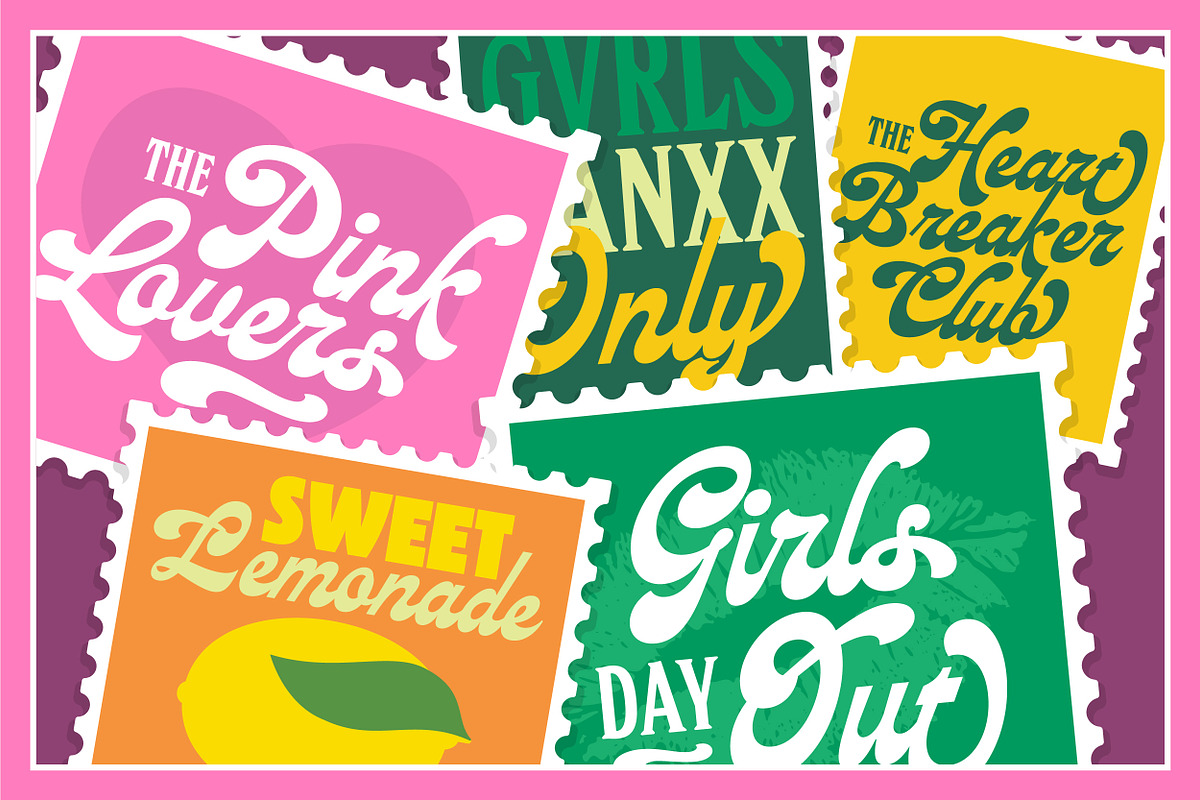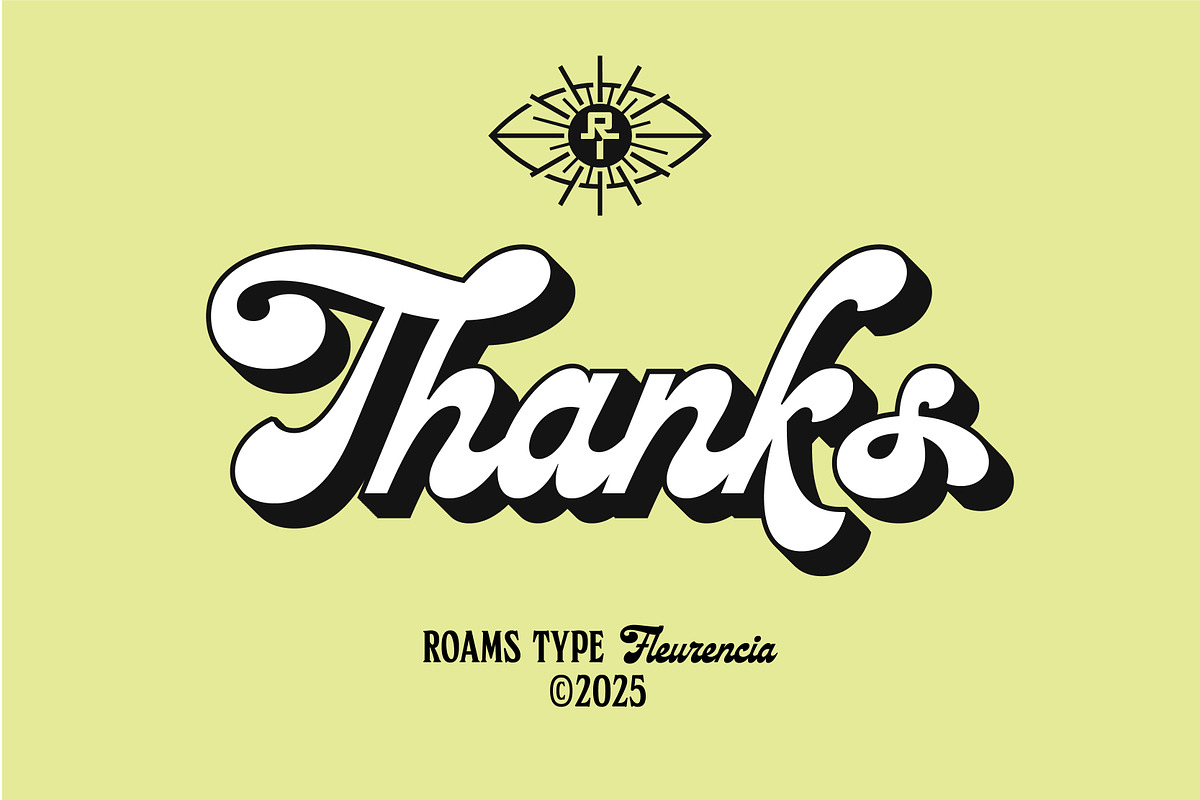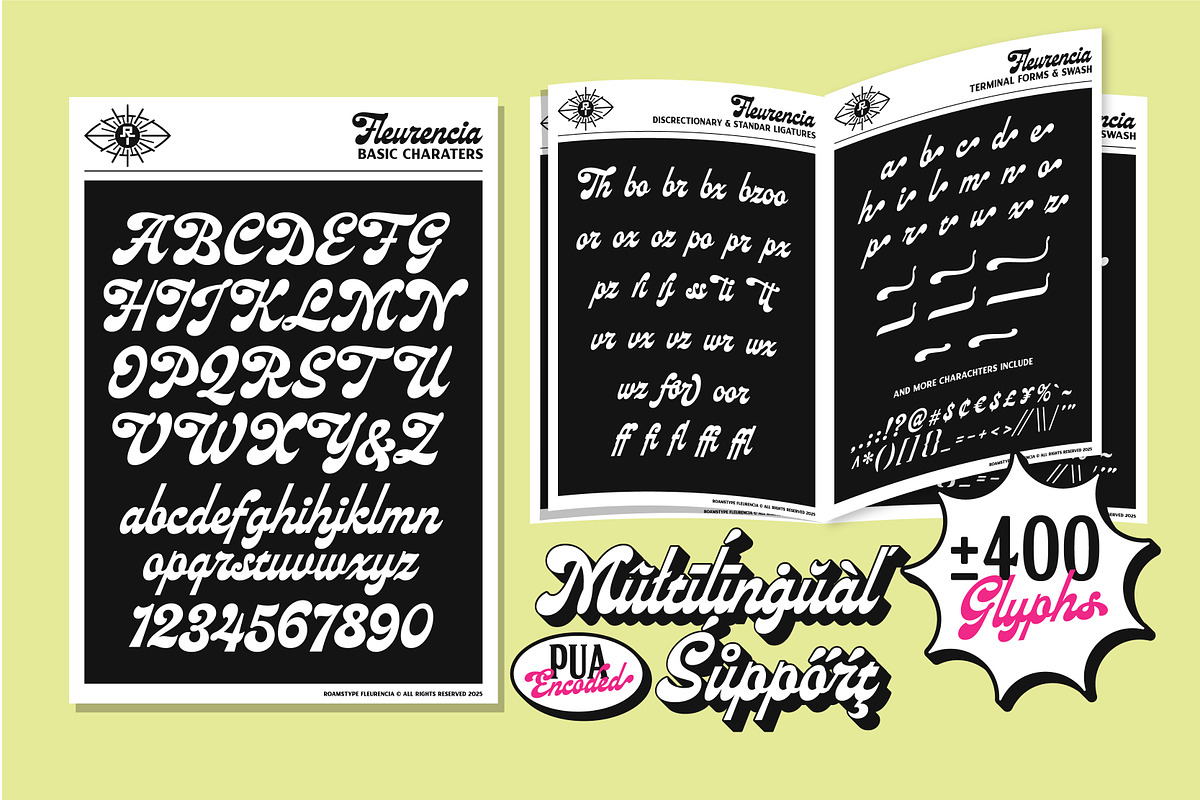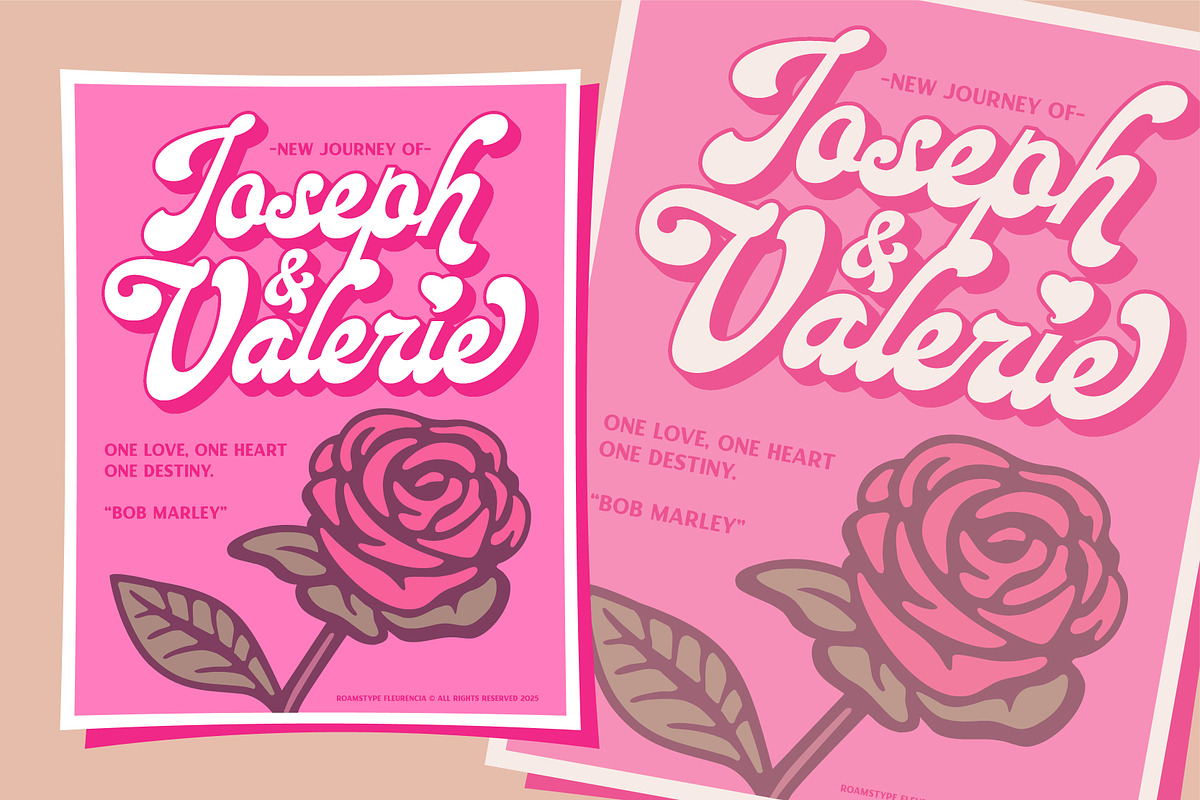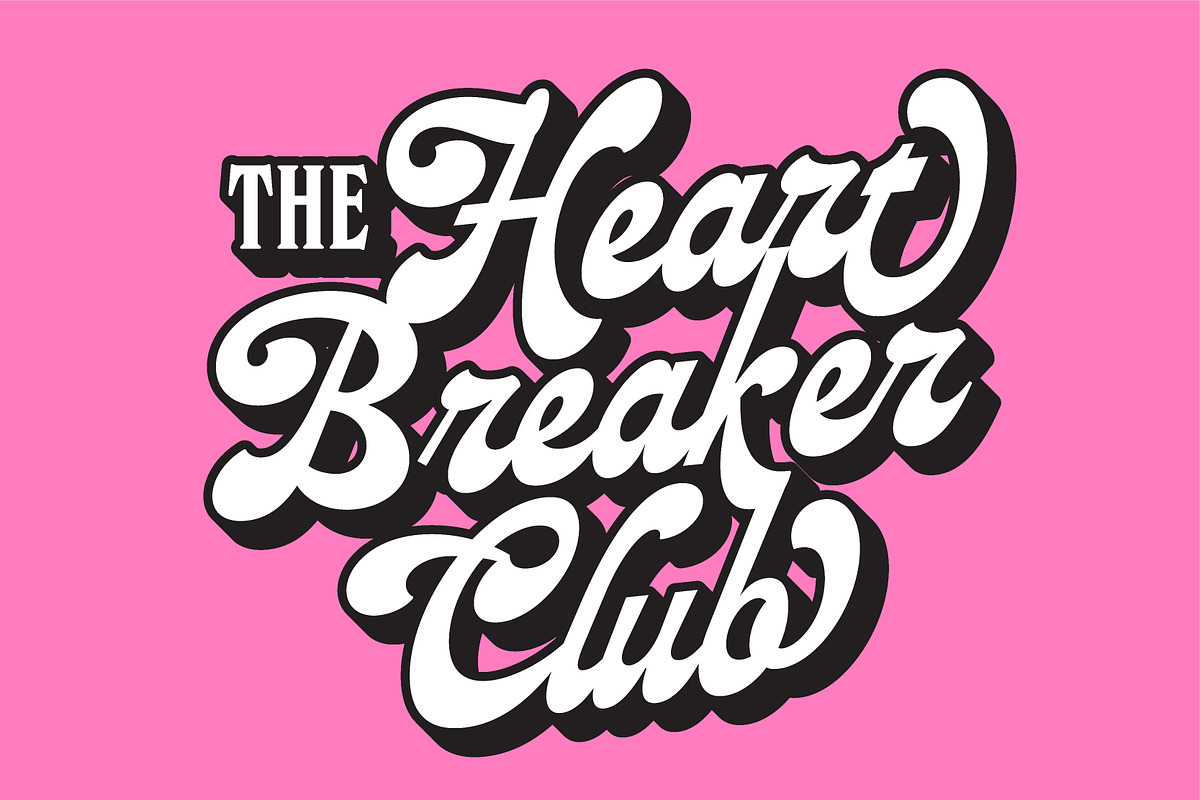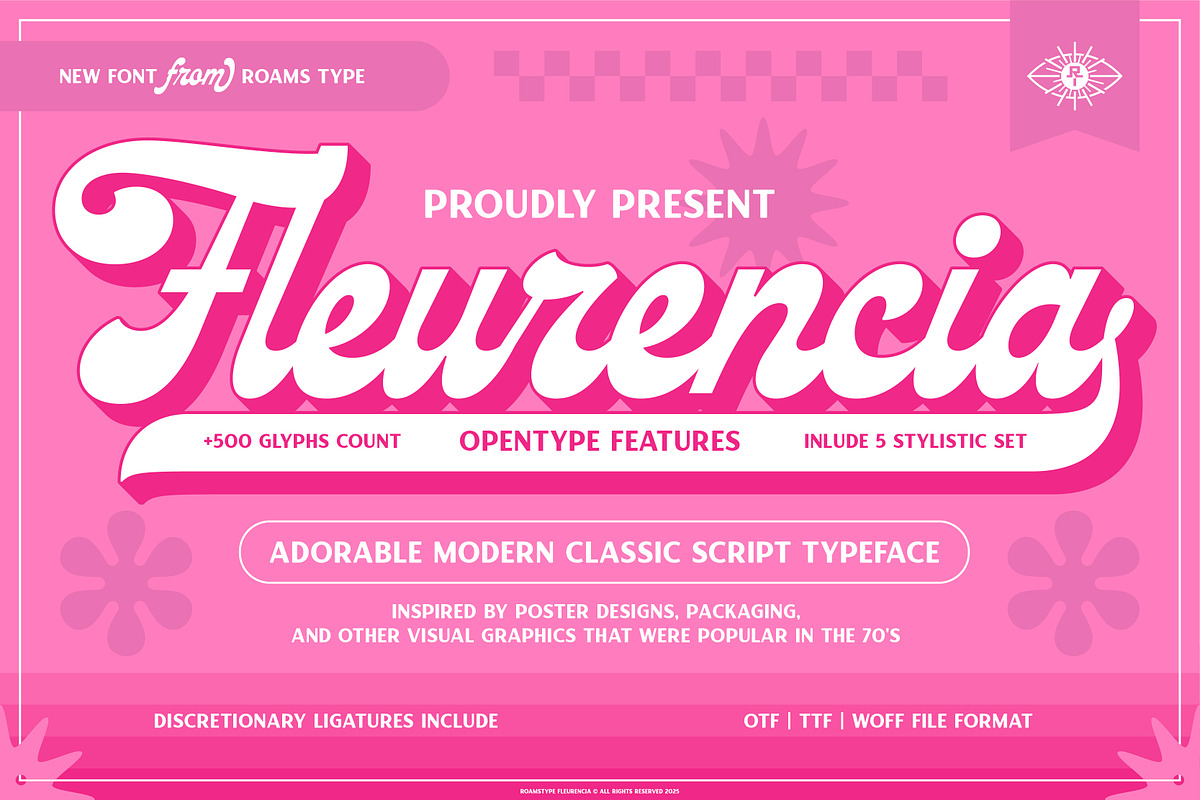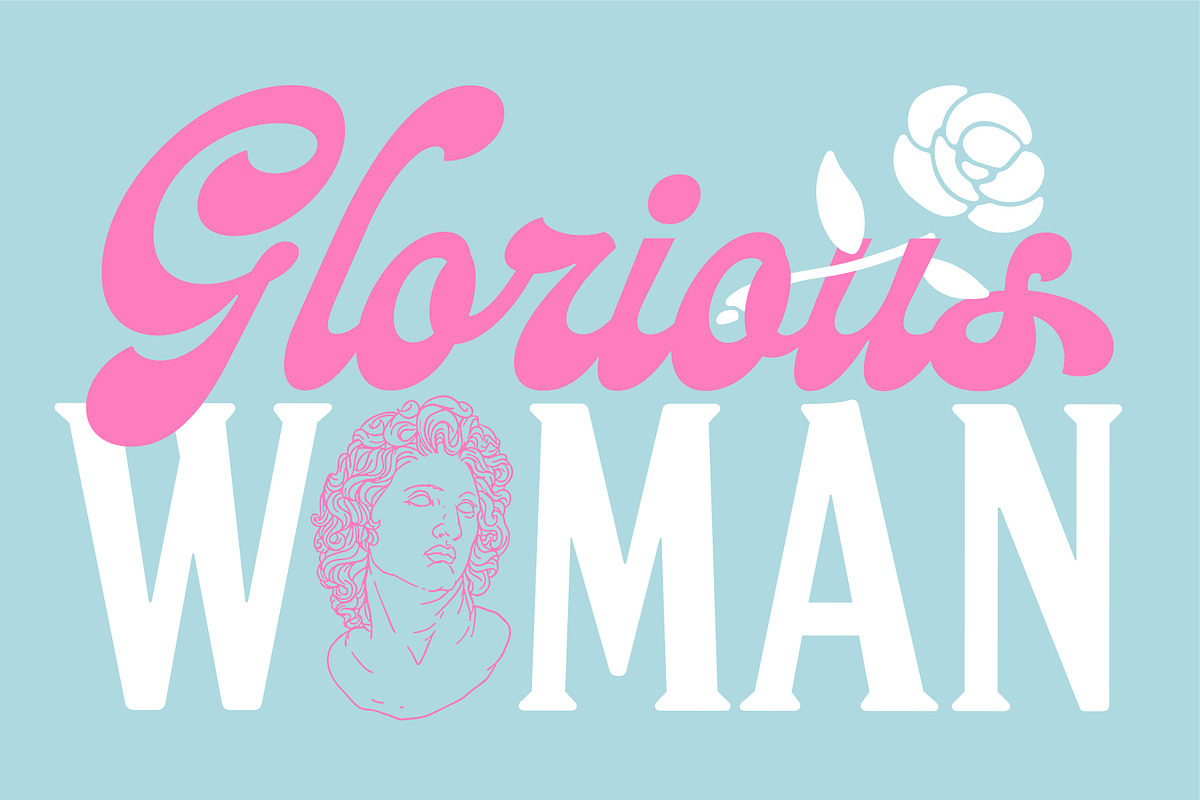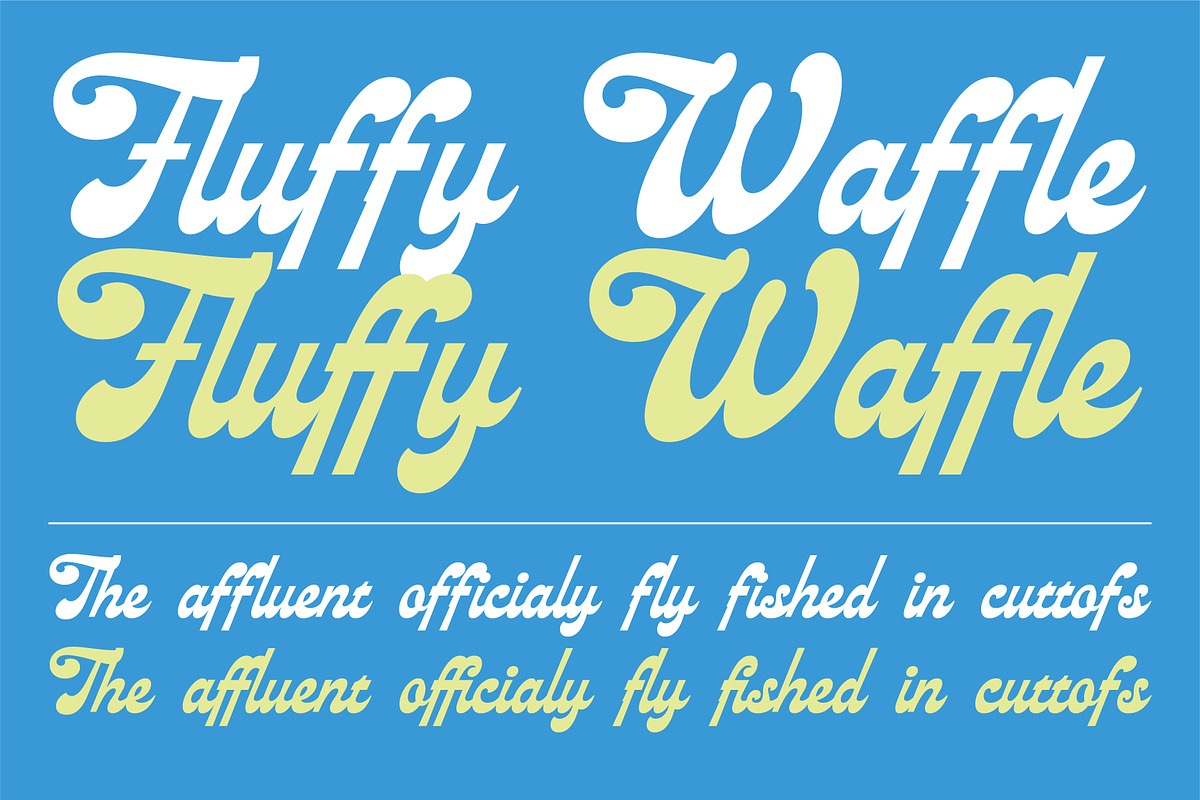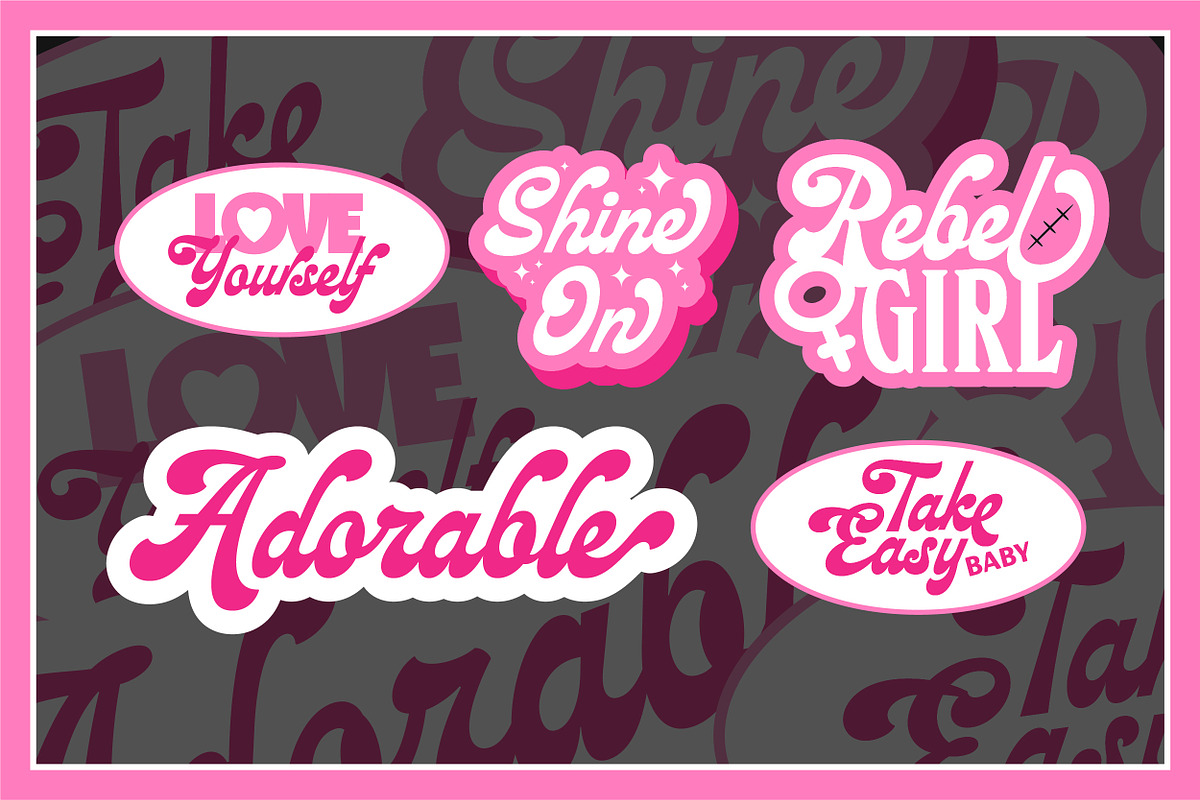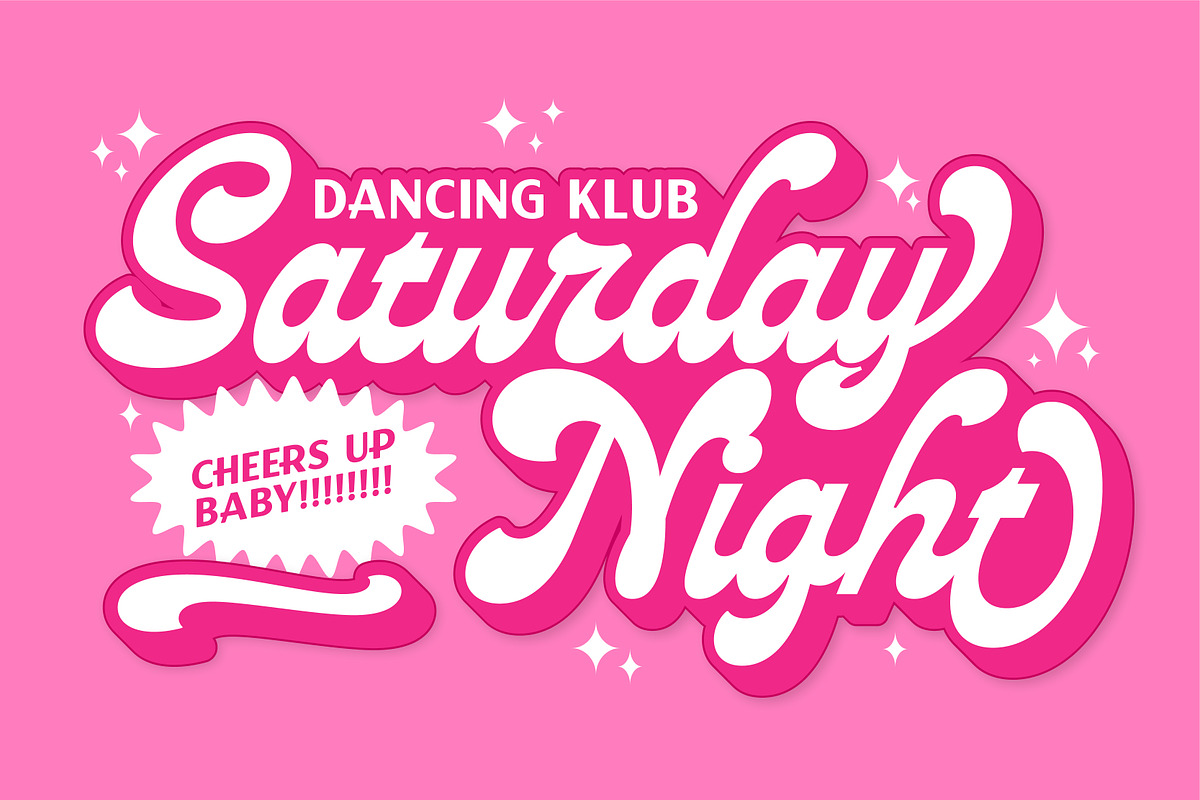
Fleurencia - 70's Adorable Script
Inspired by beautiful writing on packaging, graphic design, popular typography in the 70s, This font is very suitable for logotypes, branding designs, branding identities, etc.
RTCO Fleurencia Script